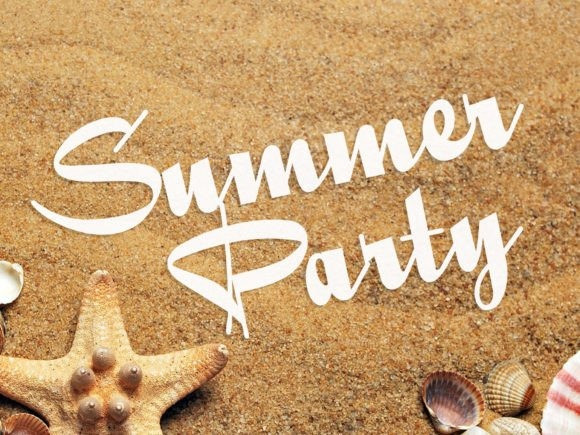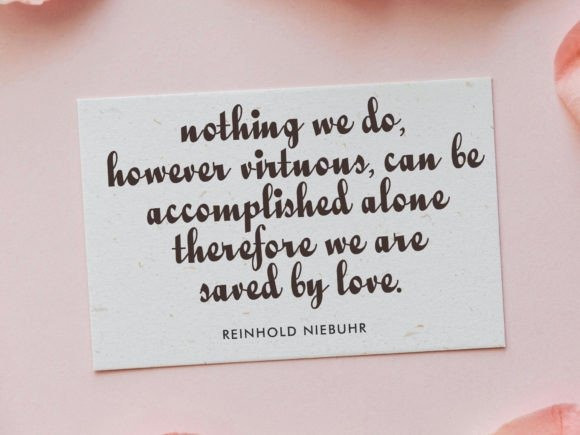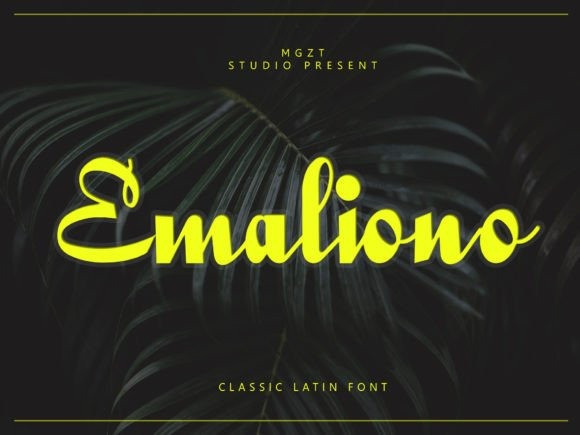
Emaliono Script Font
Emaliono Script Font is crafted with fluid, organic strokes, evoking the elegance of personalized handwriting under the soft glow of moonlight. The font’s delicate yet bold lines create a sense of depth and intrigue, making it perfect for luxurious evening events, upscale branding, and intimate, nocturnal-themed designs.